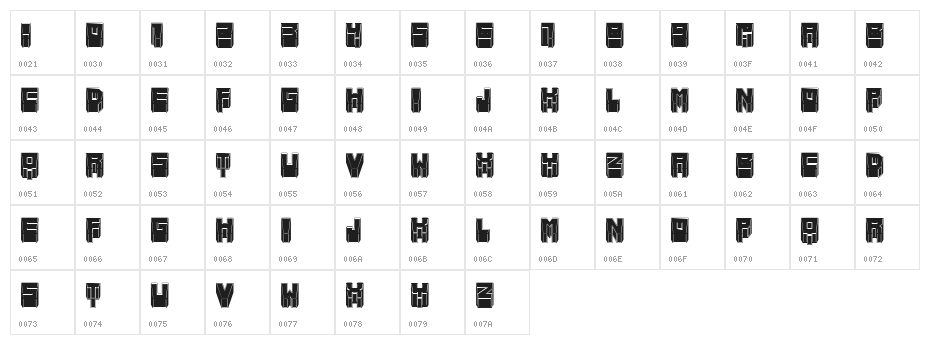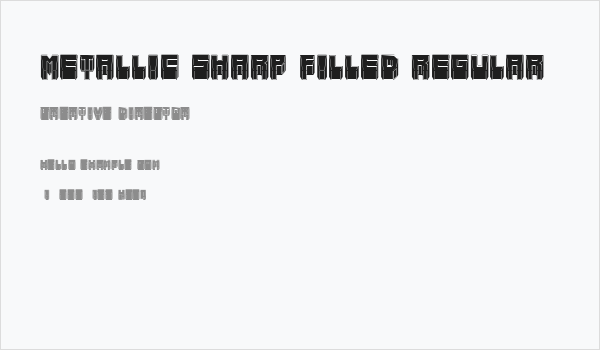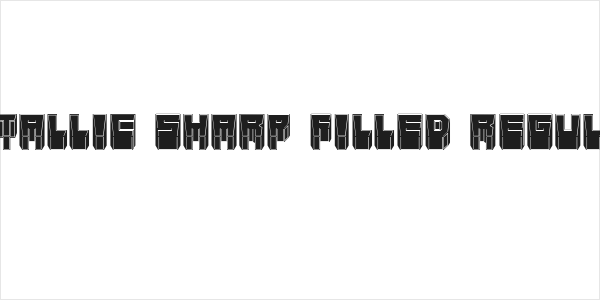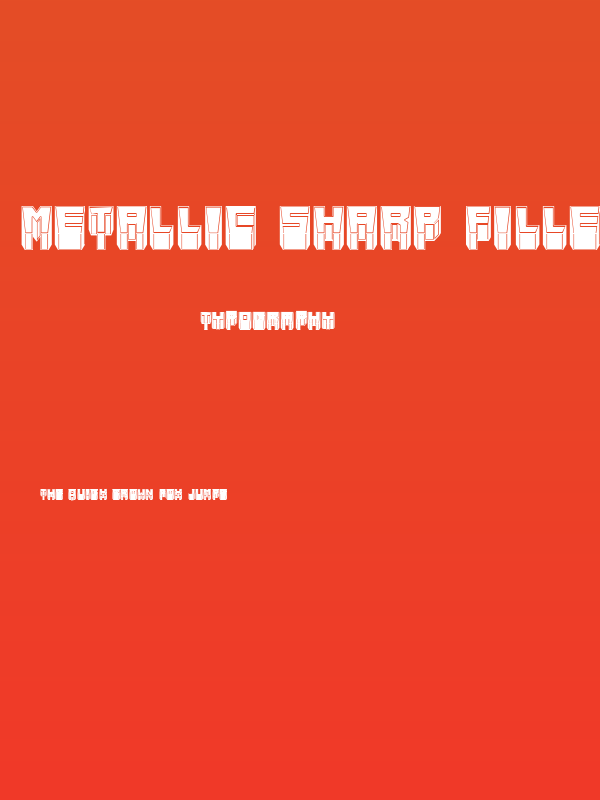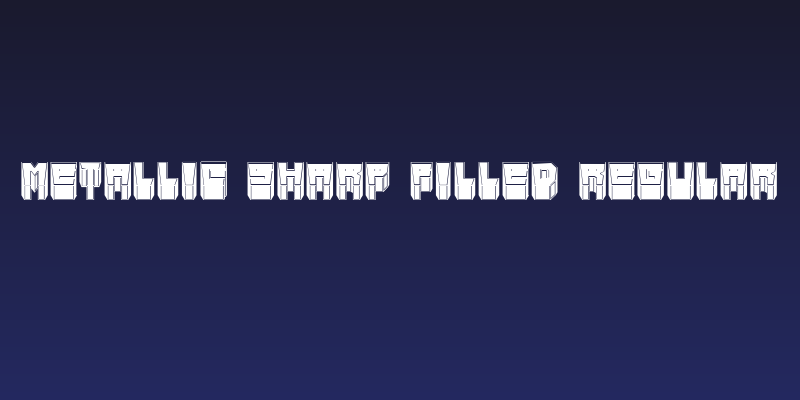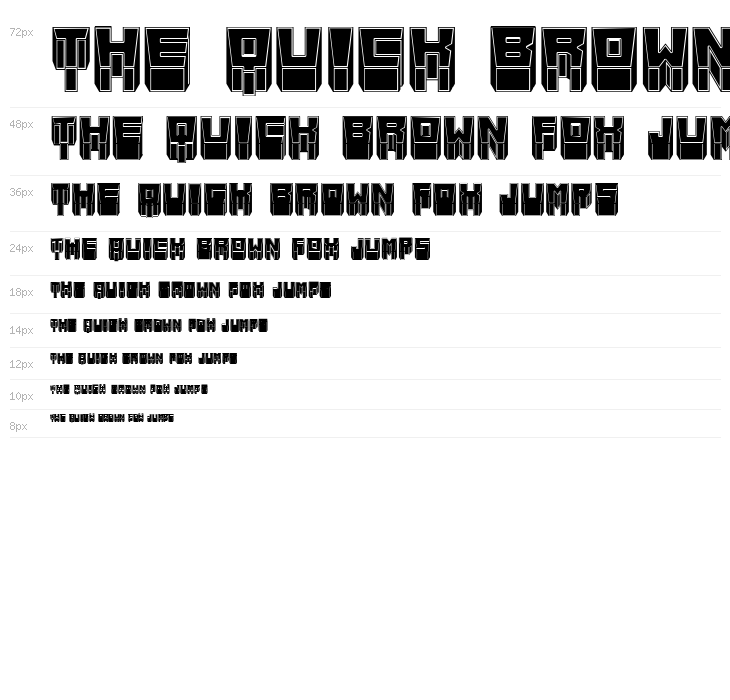
Metallic Sharp Filled Regular Font
Metallic Sharp Filled Regular Description
This font features a bold, three-dimensional design with a metallic and sharp appearance. The characters are filled and have a regular structure, creating a strong visual impact. The edges are crisp and angular, giving it a futuristic and industrial feel. The font is highly stylized, with each letter and number appearing as if it is carved out of metal, complete with shading that enhances the 3D effect. This style is consistent across uppercase and lowercase letters, as well as numbers and special characters, ensuring a cohesive look.
| Overall Style | Futuristic, Industrial |
| Proposed Projects | Ideal for projects requiring a strong, industrial aesthetic such as video game titles, movie posters, or branding for tech companies. |